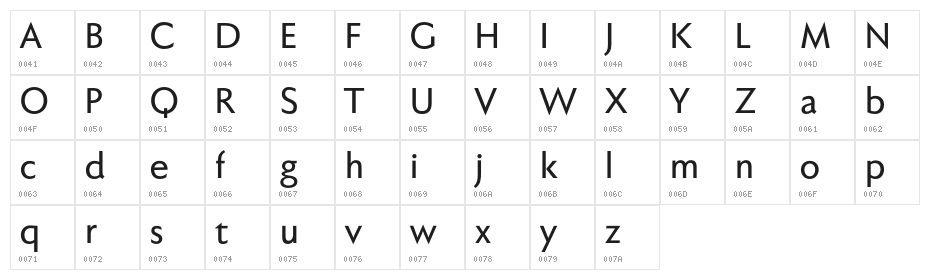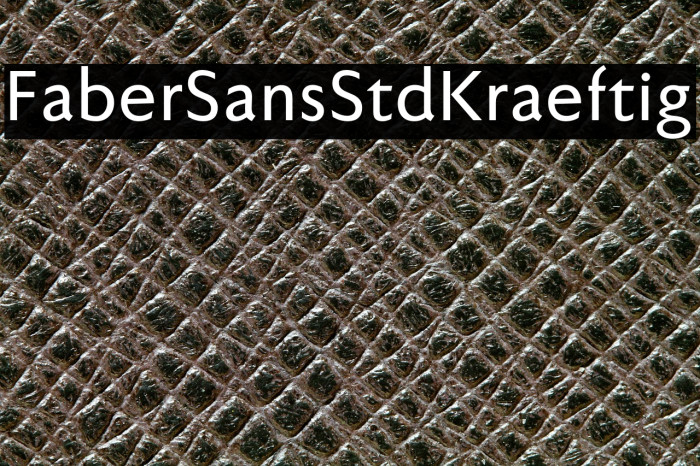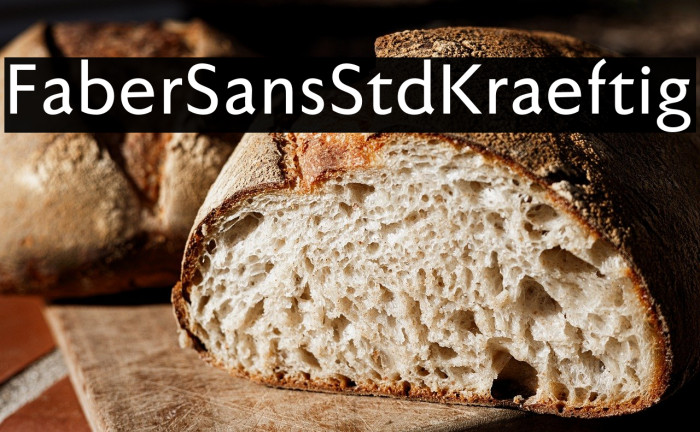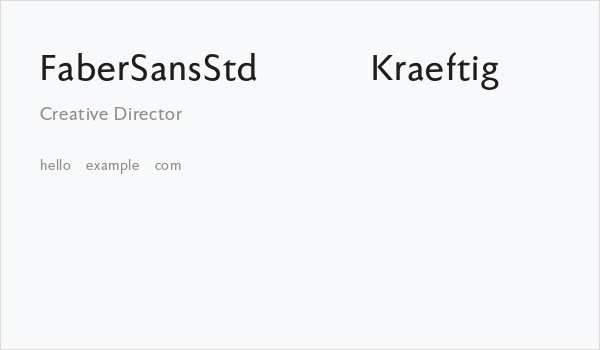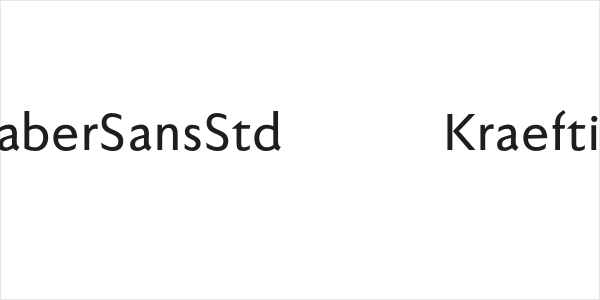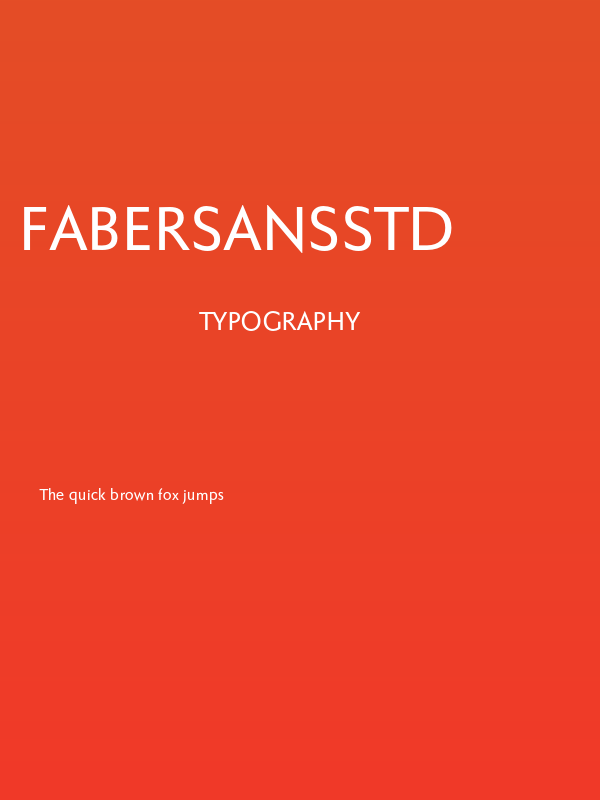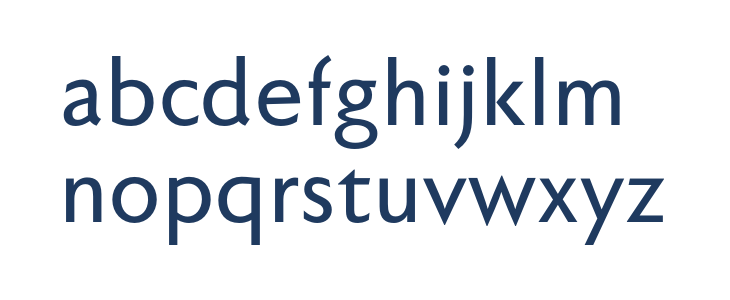
FaberSansStd-65Kraeftig Font
FaberSansStd-65Kraeftig Description
This font features a clean and modern sans-serif design, characterized by its strong geometric shapes and balanced proportions. The uppercase letters are bold and assertive, while the lowercase letters maintain a harmonious flow. The font exhibits a uniform stroke width, contributing to its contemporary and professional appearance. Its simplicity and clarity make it highly legible, suitable for a wide range of applications. The spacing between characters is consistent, ensuring readability across different sizes and contexts.
| Proposed Projects | Ideal for corporate branding, digital interfaces, advertising, and editorial design. |